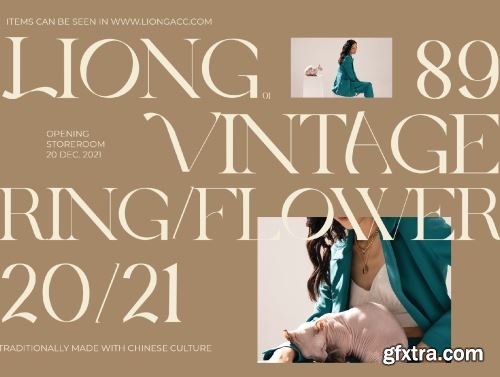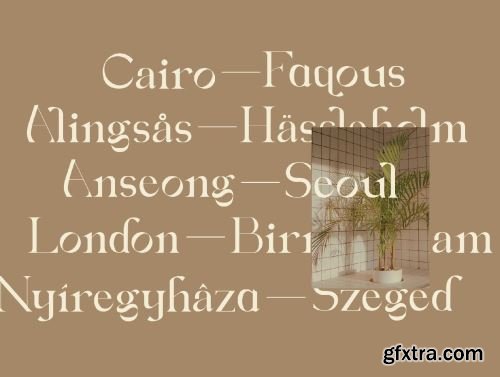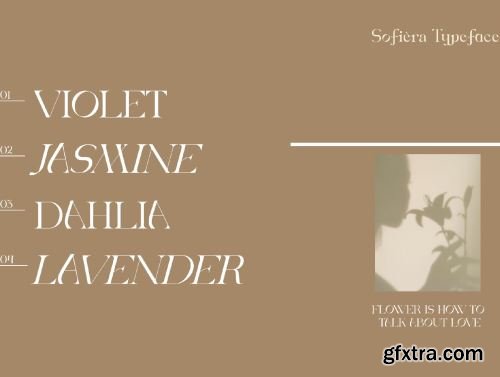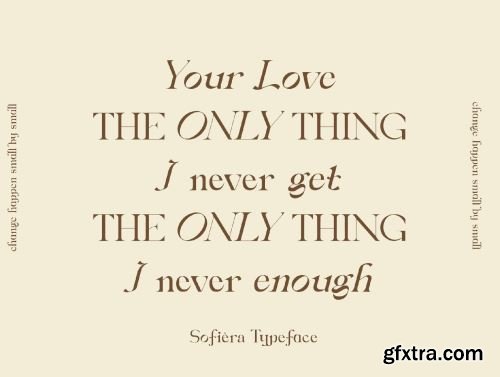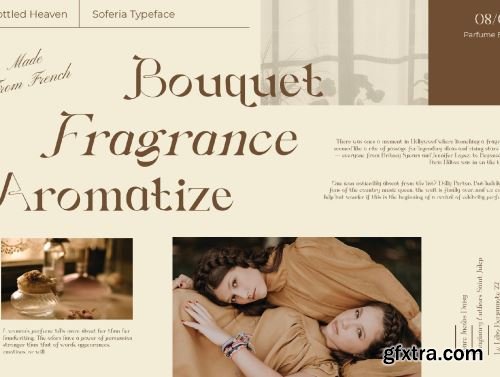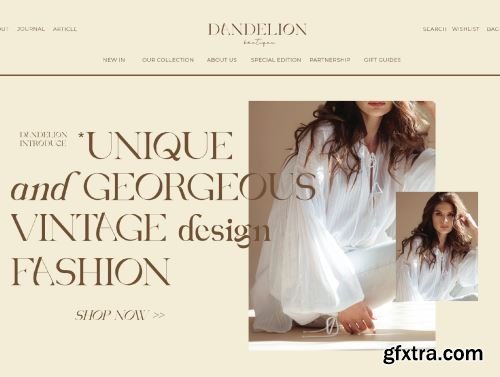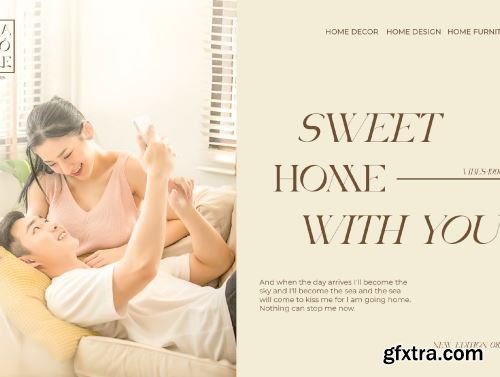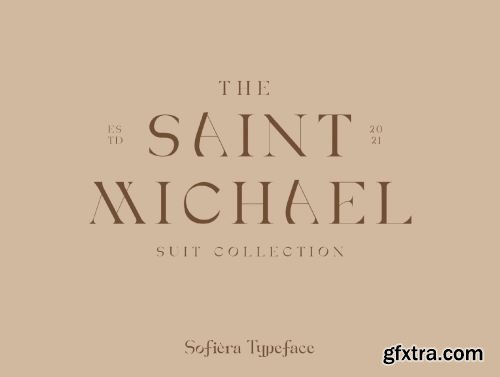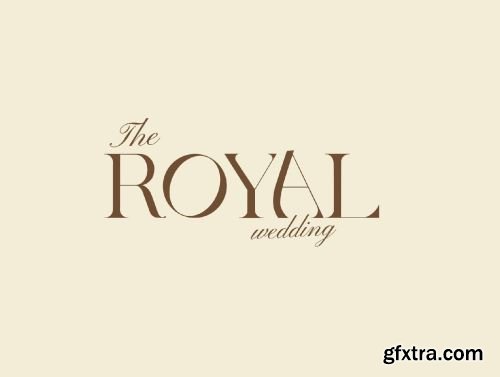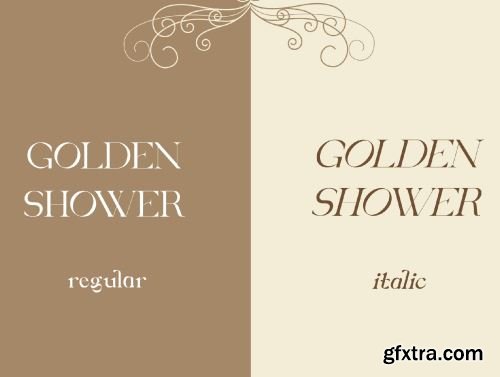
Sofiera - Luxury Typeface Ui8.net
Sofiera is a New Luxury Vintage font that is both elegant and unique with smooth curves and tons of special alternative glyphs, ornament and multilingual support.